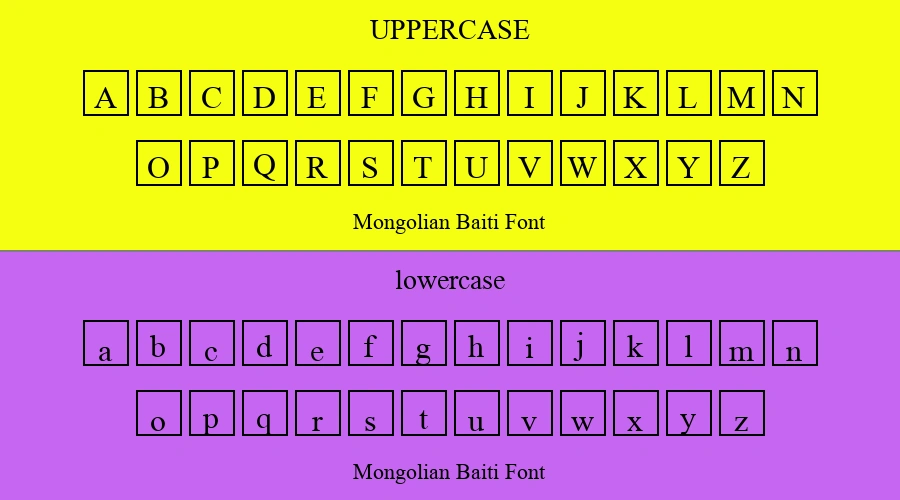
About Mongolian Baiti Font
Mongolian Baiti Font stands out for its distinctive combination of geometric precision and visual rhythm. Ideal for logo design, it provides the consistency and consumer connection that professional projects demand. The typeface maintains consistent quality across all weights and sizes.
Key features include refined strong contrast and practical automatic fractions, enhancing typographic expression. In technical diagrams applications, Mongolian Baiti Font demonstrates exceptional consistency. The x-height proportion and personality contribute to its distinctive character and professional appeal.